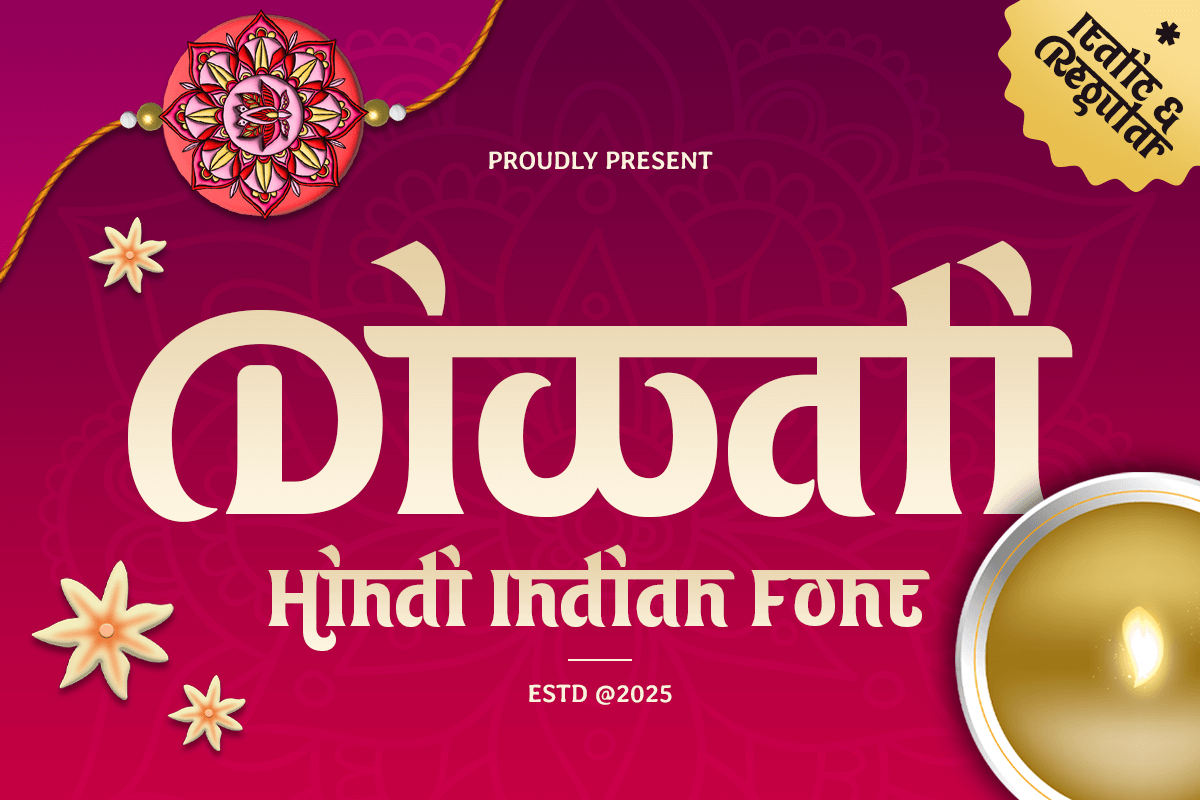
Diwali
-Hindi Diwali Indian Font
Diwali - Hindi Diwali Indian Font
DIWALI is a Hindi Indian festival font inspired by the cultural richness and festive traditions of India. With decorative and ethnic letterforms, DIWALI captures the celebratory spirit of Diwali, making it perfect for invitations, posters, packaging, and branding that highlight heritage and tradition.
Whether for festival campaigns, cultural promotions, or artistic projects, DIWALI delivers authenticity and festivity in every design. Its bold aesthetic bridges traditional artistry with modern usability, ensuring your work stands out with cultural significance.
DIWALI – Hindi Diwali Indian Font Features
• Decorative and ethnic letterforms inspired by Indian heritage
• Ready with Regular and Italic Version, and easy to use for your needs
• Perfect for Diwali, cultural, and celebration-themed projects
• Unique festive design suitable for print and digital projects
• OpenType features for versatile design flexibility
Bring the festive light of tradition with DIWALI – the perfect font for Hindi, Indian, and celebration designs. �✨